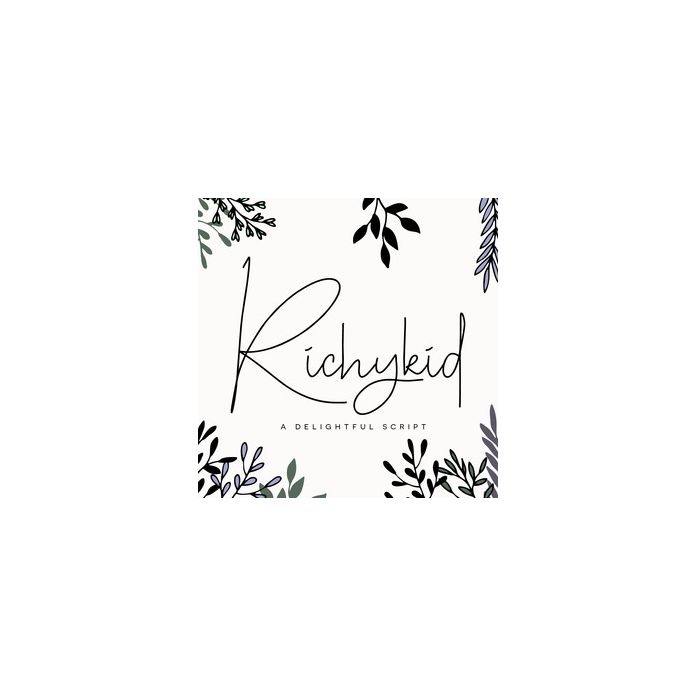
richykid font
Richykid is a beautiful and delicate script that will give your designs a cutesy touch. It comes with full language support and bonus ligatures.